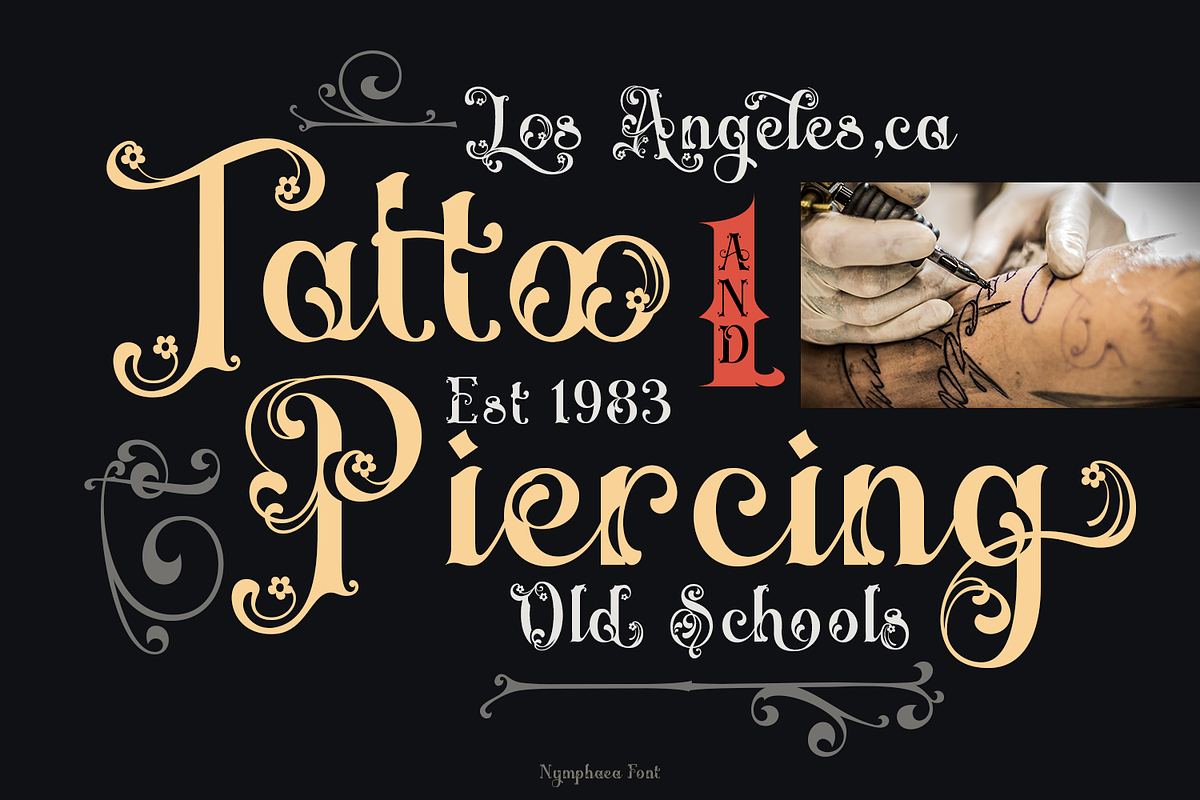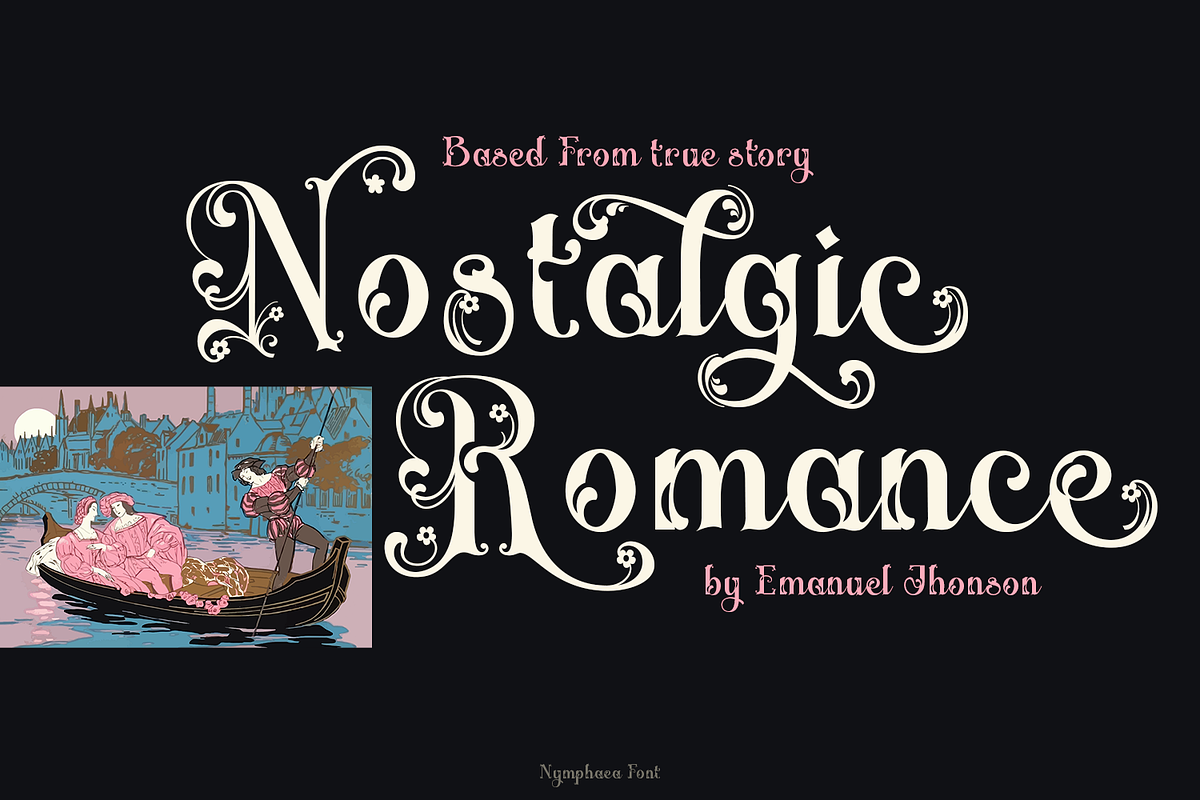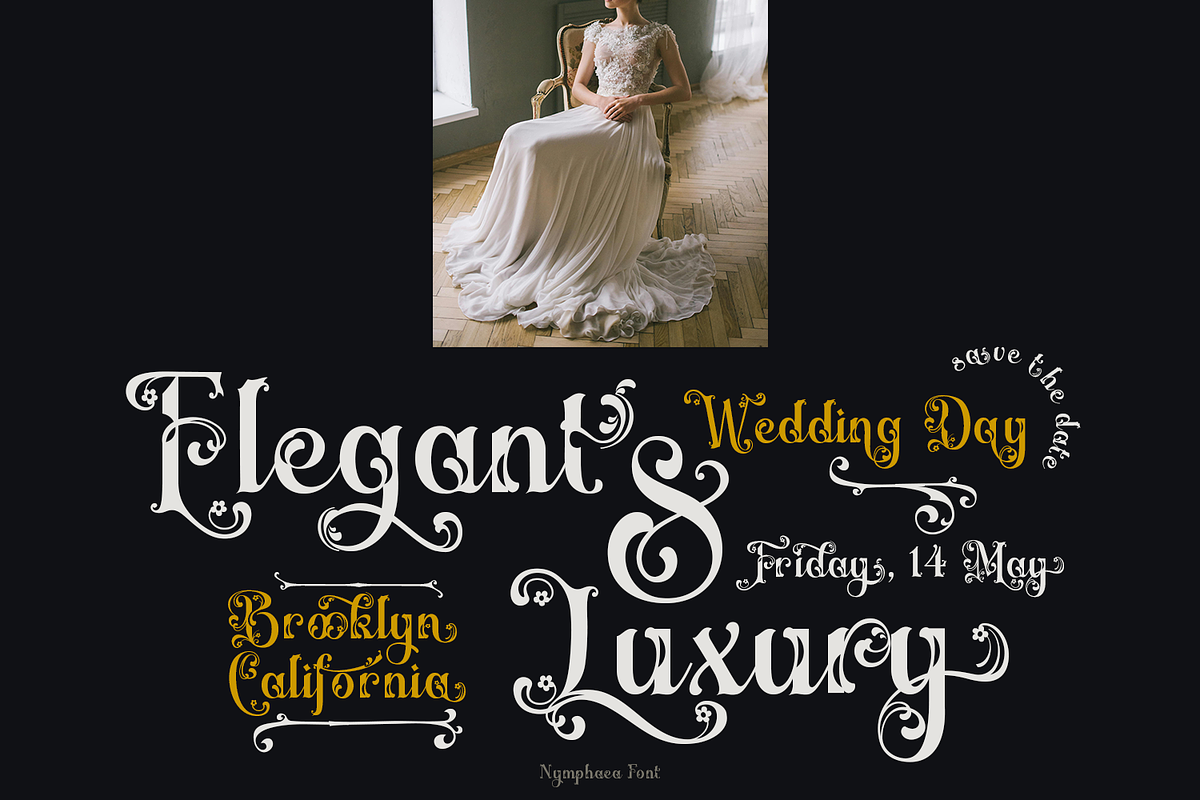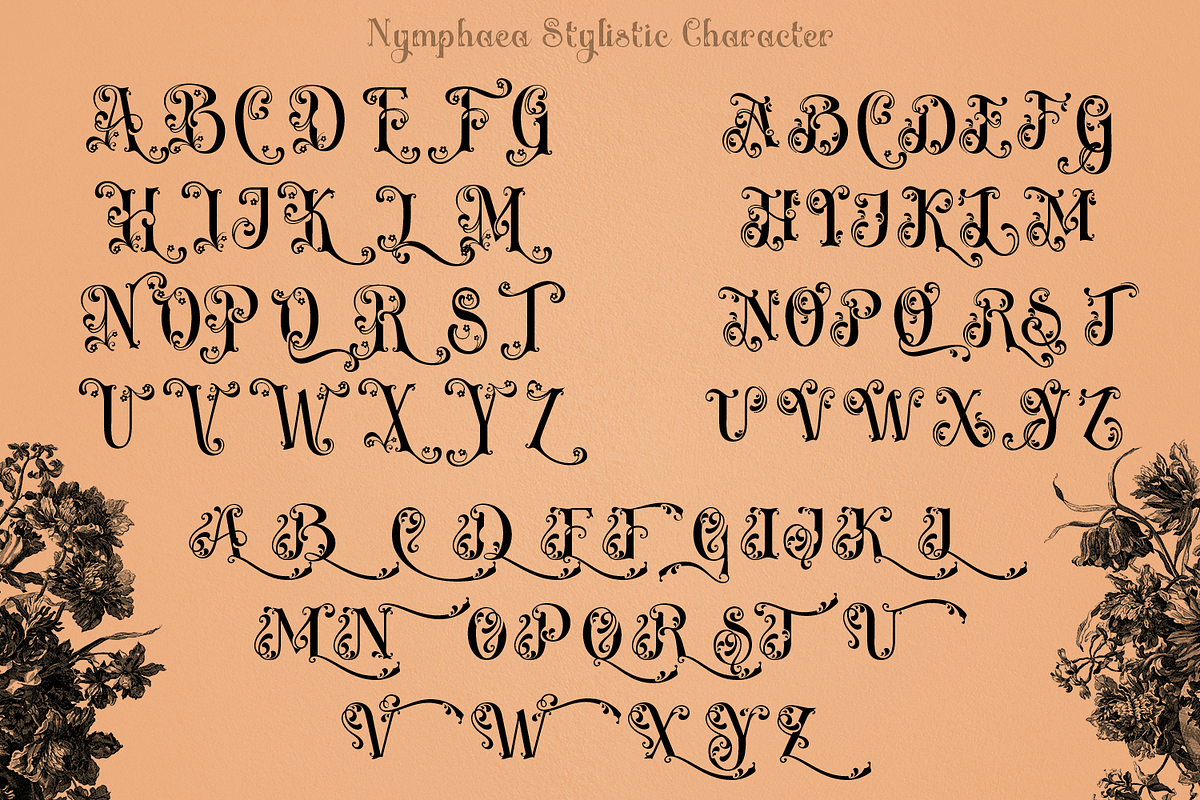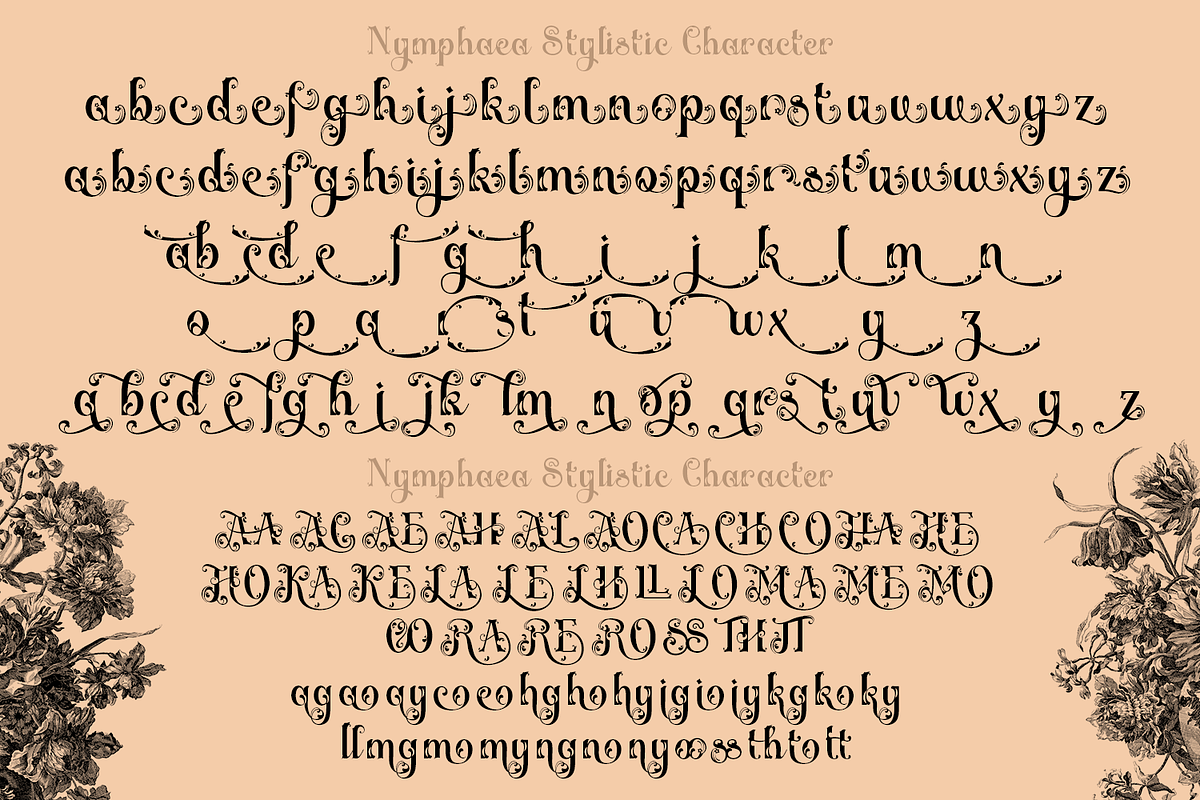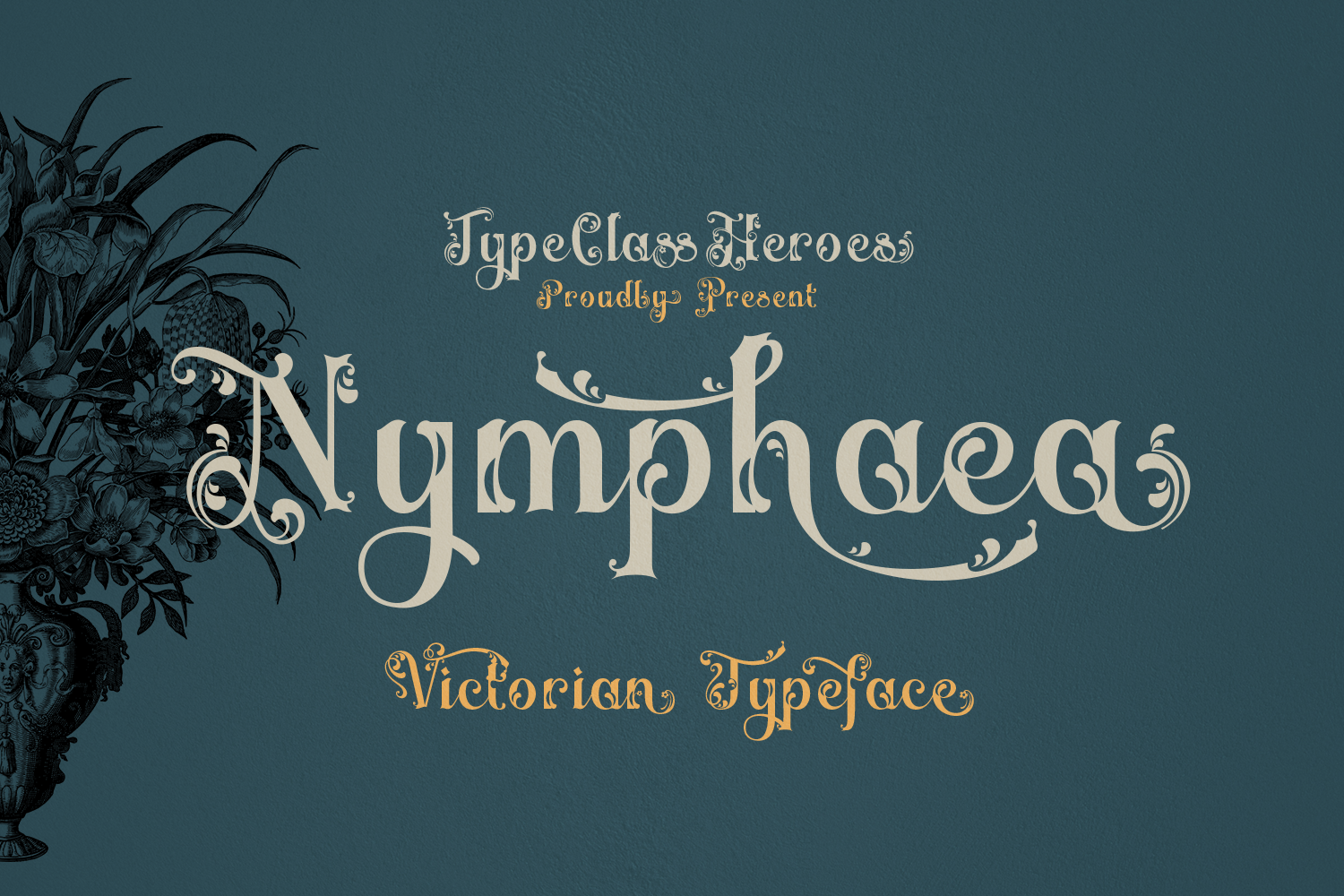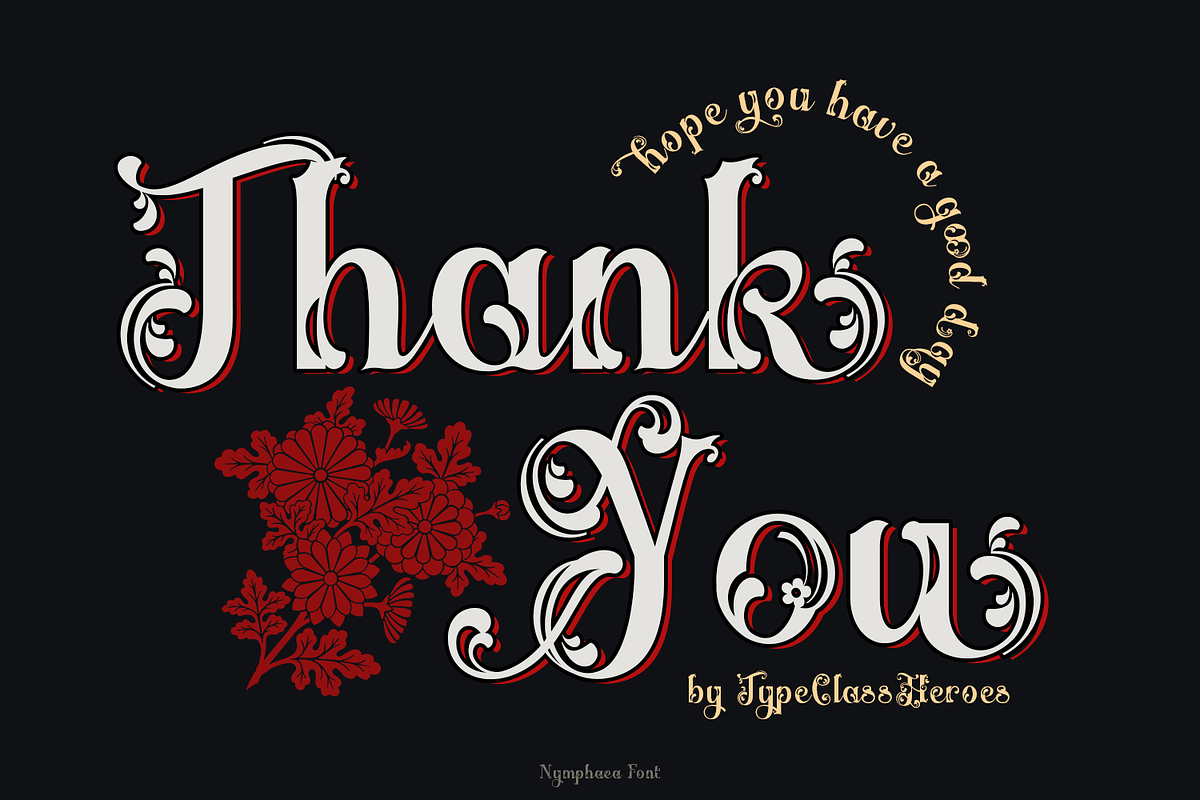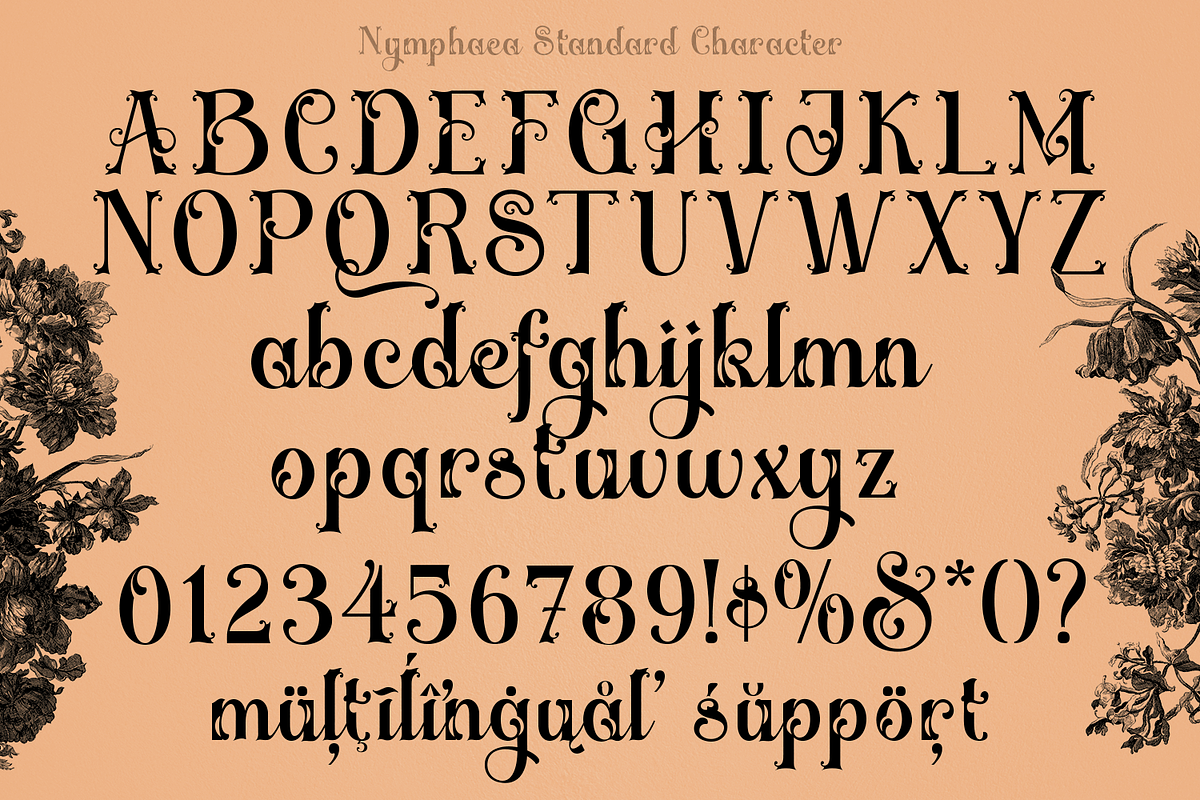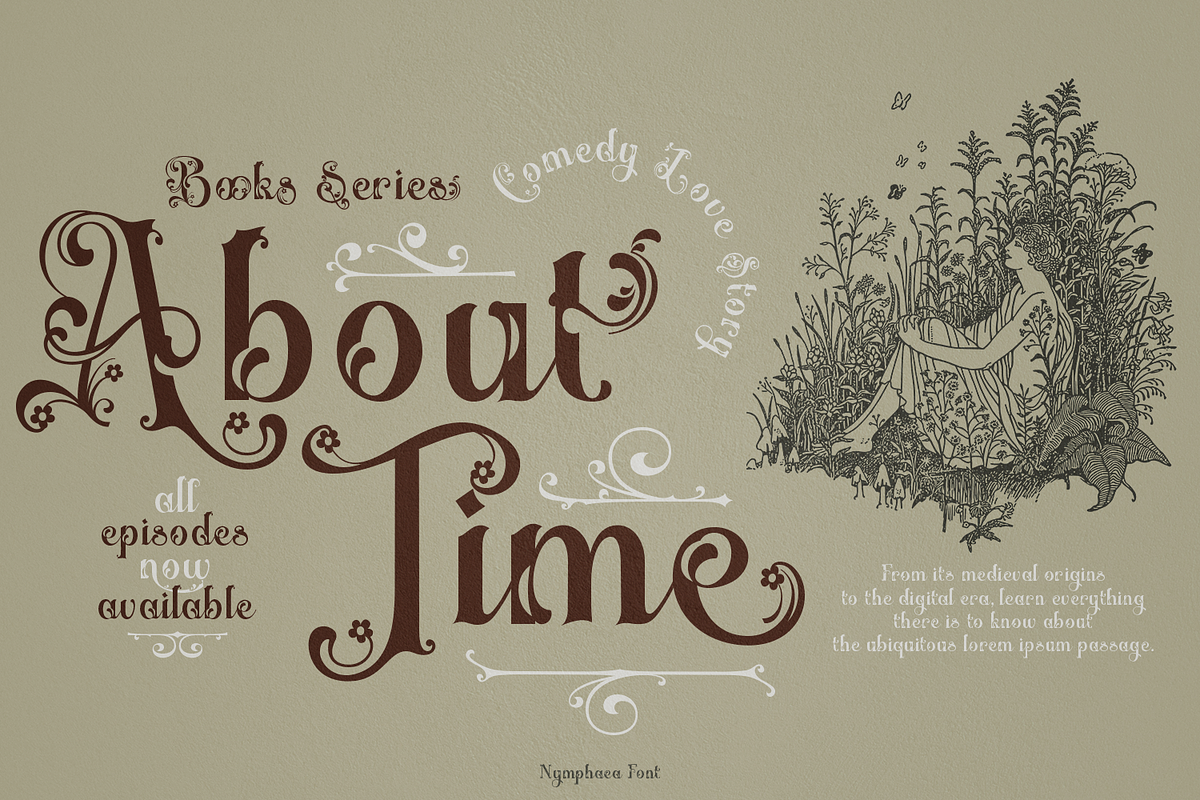
Nymphaea Victorian Font
Nymphaea is a Victorian typeface will create a design that is gorgeous and still looks modern and elegant with a romantic touch. Classy and readable, carefully creating every glyph, designing beautiful simple words with this font. The classic style is perfect to be applied in various formal forms such as invitations, labels, restaurant menus, logos, fashion, make up, stationery, novels, magazines, books, greeting / wedding cards, packaging, labels or any type of advertising purpose makes it ideal for whether you’re creating digital content or printed materials.
- International Glyphs